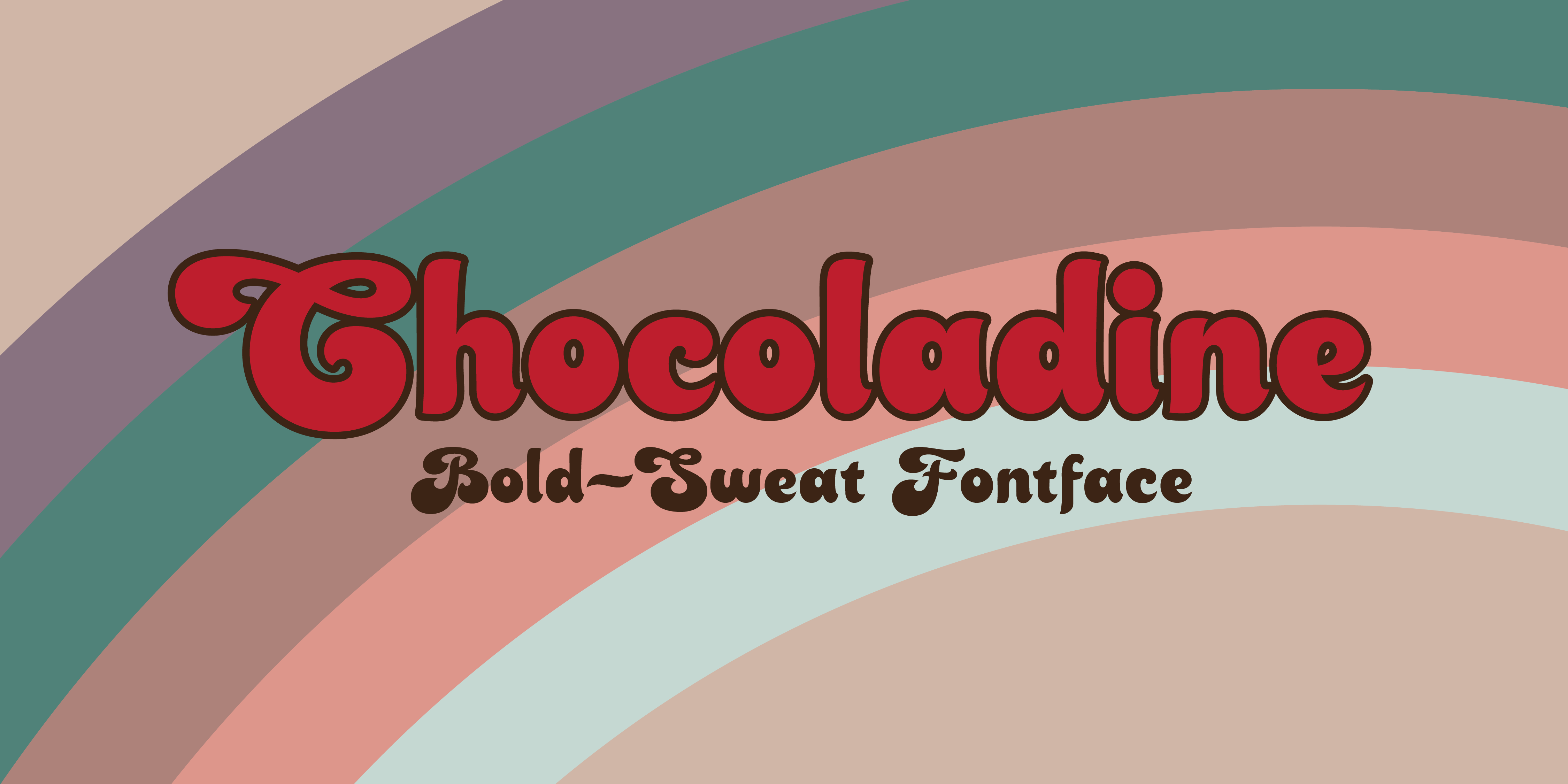
This delicious script font is perfect for bakery branding, chocolate shop signage, patisserie marketing, gourmet food packaging, dessert menu design, culinary blog headers, artisanal confectionery labels, and sweet design projects that celebrate French pastry culture and irresistible indulgence.
Chocoladine Font is exciting because it embodies French culinary elegance with its buttery letterforms that seem to melt like warm chocolate pastry fresh from the oven. The font delivers gourmet sophistication while maintaining delectable readability that makes mouths water.
The Chocoladine Font family includes regular and bold versions with pastry-themed decorative elements, culinary symbols, and French bakery ornaments, providing designers with comprehensive tools for creating mouth-watering typography that satisfies design cravings.
Ready to indulge in sweet design? Chocoladine Font Free Download offers designers delectable letterforms that flow with French pastry elegance and gourmet sophistication. This tempting typeface combines culinary aesthetics with professional functionality, making it ideal for bakeries, patisseries, and gourmet food brands. Whether you're designing chocolate shop menus, artisanal bakery packaging, or dessert cookbook covers, this font delivers irresistible appeal. The deliciously crafted characters feature buttery curves while maintaining excellent readability across culinary applications. Perfect for businesses in pastry, chocolate making, gourmet food, and French cuisine that celebrate artisanal craftsmanship and culinary excellence. The font's chocolatey construction creates memorable brand recognition that resonates with food lovers worldwide. Each letter showcases deliberate sweetness that mirrors the irresistible allure of French pastries. Download today and satisfy your creative appetite with this premium script font that transforms ordinary text into extraordinary expressions of culinary artistry and the delicious charm of Chocoladine Font Free Download indulgence.